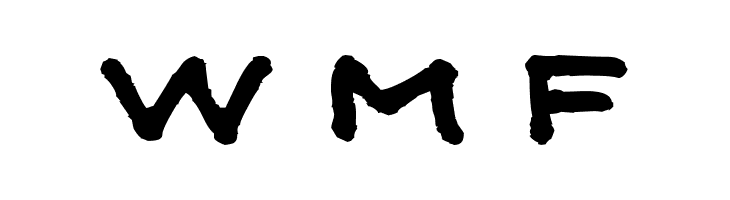
( Fonts by Typography in Decay )
A modern, geometric font with rounded edges and consistent stroke width.
( Fonts by Furdzville - Brian Powers )
A bold, angular font with sharp edges and geometric shapes, perfect for modern designs.
( Fonts by Emerald City Fontwerks )
A playful, handwritten font with tall, expressive letterforms.
A playful, hollow, hand-drawn font with a whimsical and decorative style.
( Fonts by Emerald City Fontwerks )
A casual, handwritten font with a playful and informal style.
( Fonts by Rick Mueller )
A whimsical, flowing font with script and decorative elements.
( Fonts by Rick Mueller )
A bold, geometric font with unique cut-out shapes and sharp edges.
( Fonts by Marty Bee - www.martybee.com )
A bold, decorative font with whimsical, artistic designs and intricate patterns.
An abstract, sketch-like font with overlapping strokes and a hand-drawn effect.
( Fonts by Rick Mueller )
A bold, dynamic script font with flowing, energetic letterforms.
An elegant script font with flowing, cursive strokes and refined curves.
( Fonts by Bill Bussone )
A bold, distressed font with jagged edges and a dynamic, shattered effect.